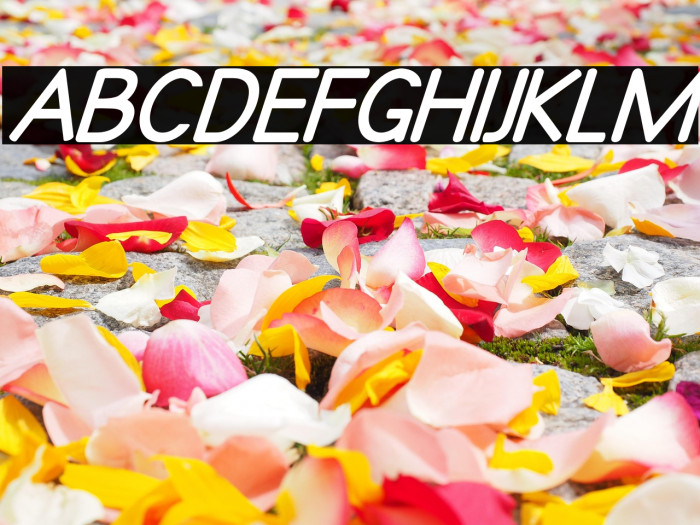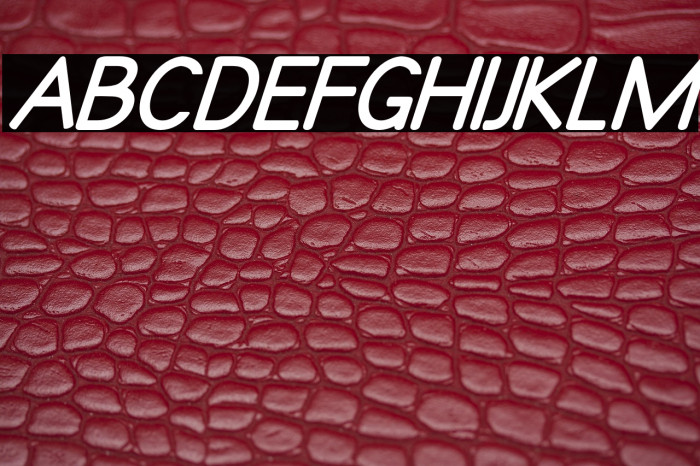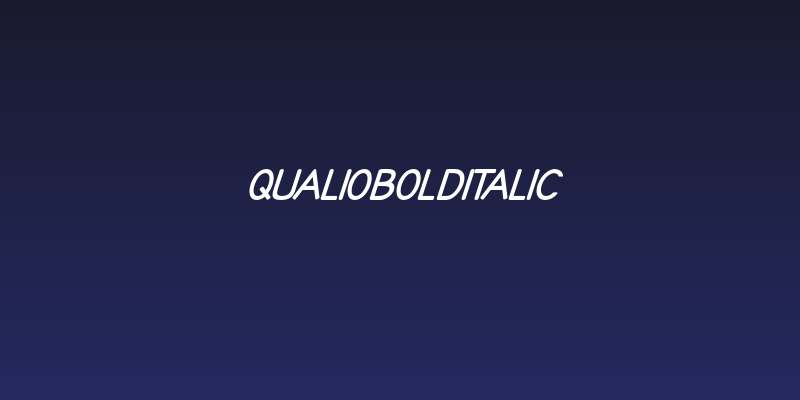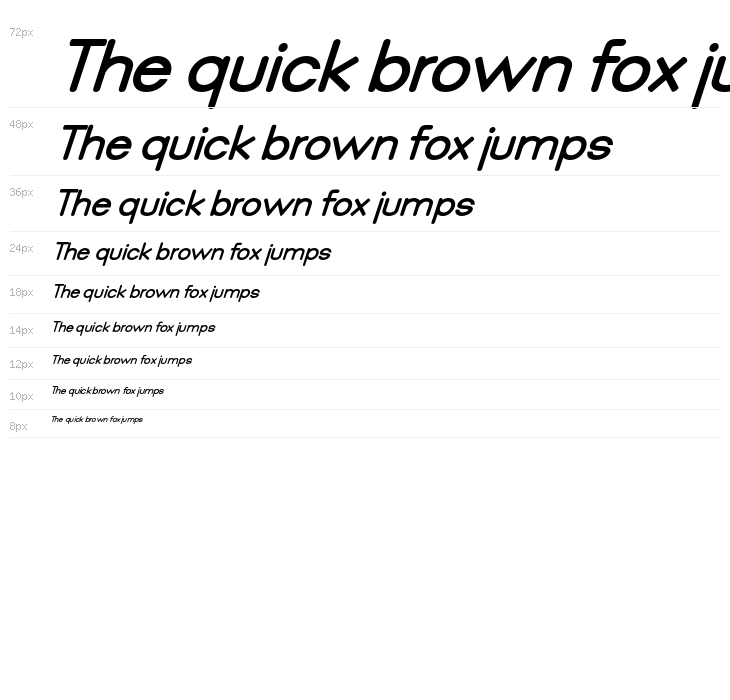
Qualiobolditalic Font
Qualiobolditalic Description
This font features a bold and italicized style, characterized by smooth, flowing curves and a slight slant to the right. The letters are well-defined with consistent stroke thickness, giving it a modern and dynamic appearance. The uppercase and lowercase letters maintain a harmonious balance, while the numerals are clear and easily distinguishable. Special characters are included, enhancing its versatility. The overall design is sleek and contemporary, making it suitable for a variety of applications where a bold yet elegant statement is desired.
| Proposed Projects | Ideal for branding, advertising, headlines, and digital media where a strong and stylish impact is needed. |